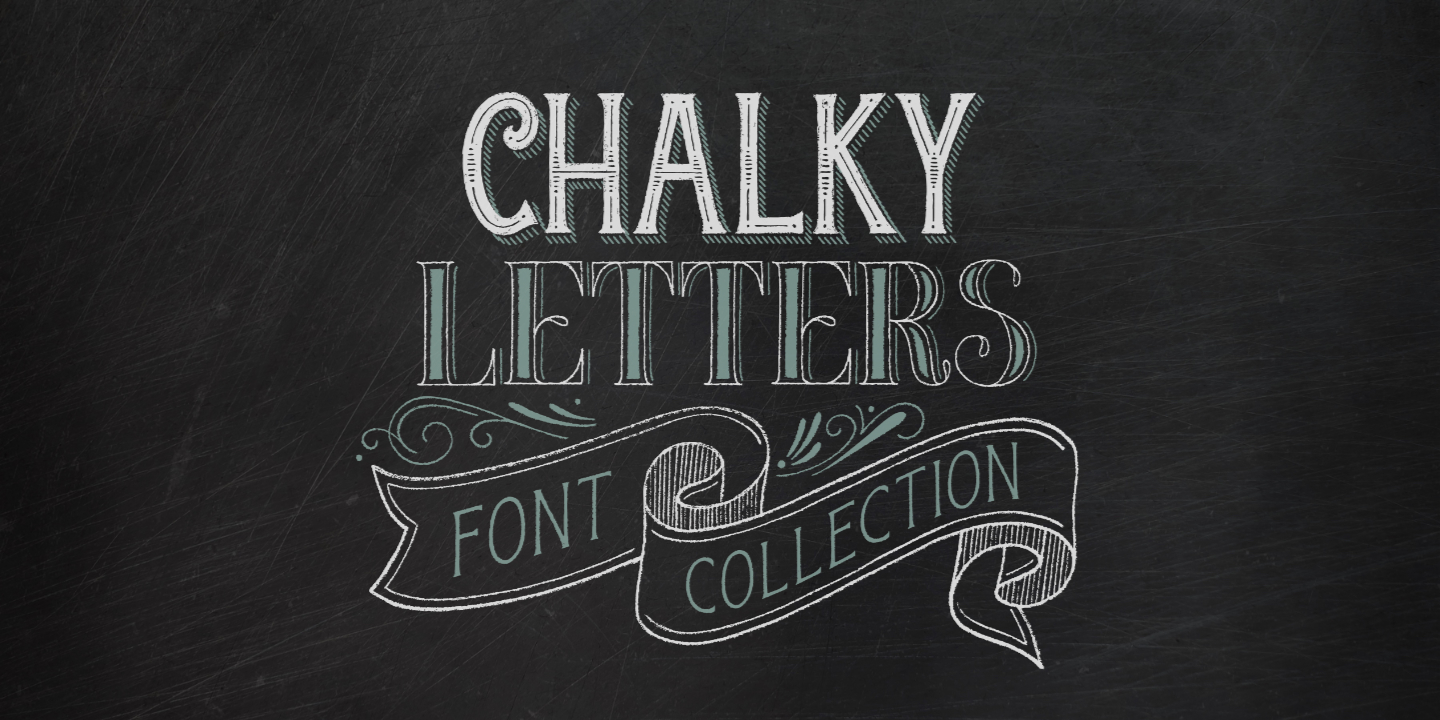
The Chalky Letters Font is exceptionally versatile for numerous creative applications including chalkboard menu designs, classroom educational materials, vintage poster designs, coffee shop signage, artisanal product packaging, rustic wedding invitations, children's book illustrations, craft project templates, DIY workshop materials, and nostalgic marketing campaigns. Its handcrafted appearance makes it particularly effective for restaurants, educational institutions, craft businesses, and lifestyle brands seeking to convey warmth, creativity, and authentic handmade quality in their visual communications.
What makes the Chalky Letters Font incredibly exciting is its authentic recreation of traditional chalkboard lettering combined with modern design versatility. This distinctive typeface captures the nostalgic charm and imperfect beauty of hand-drawn chalk letters while incorporating contemporary typographic standards that ensure professional quality across all applications. The font's captivating character emerges from its textured appearance, organic irregularities, and carefully crafted imperfections that create a sense of warmth and human touch, making it perfect for brands seeking to establish an approachable, creative, and artisanal identity.
The Chalky Letters Font family offers a comprehensive collection of weights and styles designed to accommodate various creative requirements. The collection typically includes light, regular, medium, bold, and black weights, with many versions featuring different texture variations and stylistic alternates that enhance the font's handmade appeal. Some editions may include decorative elements, ornamental borders, and additional chalk-inspired graphics that provide designers with complete toolkits for creating authentic chalkboard-style designs and rustic brand applications.
Creative professionals and educators consistently select the Chalky Letters Font Free Download for its exceptional authenticity and versatile performance. The font features carefully engineered spacing and kerning that maintains readability while preserving its handcrafted character, ensuring effective communication across various sizes and applications. Its robust construction works well in both digital and print environments, while the comprehensive character set includes uppercase and lowercase letters, numerals, punctuation marks, and special symbols, along with extensive language support for international creative projects and educational materials.
The Chalky Letters Font represents the perfect fusion of nostalgic charm and contemporary functionality, combining traditional chalkboard aesthetics with modern design standards. Its friendly appearance appeals to audiences seeking authenticity while maintaining the professionalism required for business applications. The font's remarkable adaptability allows it to work effectively in both casual creative contexts and sophisticated artisanal branding, ensuring consistent appeal across restaurant menus, educational materials, craft packaging, and vintage-inspired marketing campaigns.